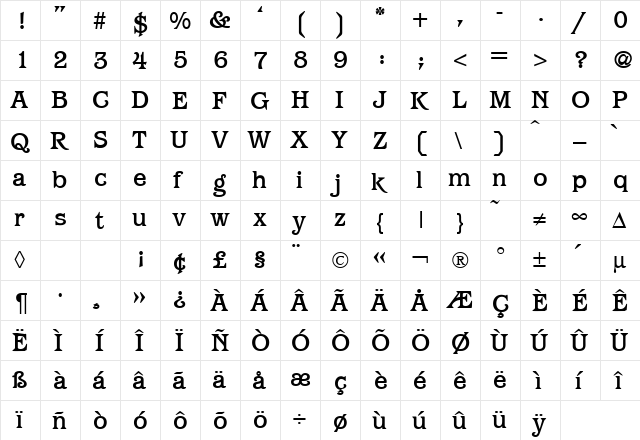
ParagonMedium Regular
Design Context for ParagonMedium Typeface
ParagonMedium takes a measured approach to typography — its balanced proportions and neutral character make it a reliable workhorse for both digital and print work.